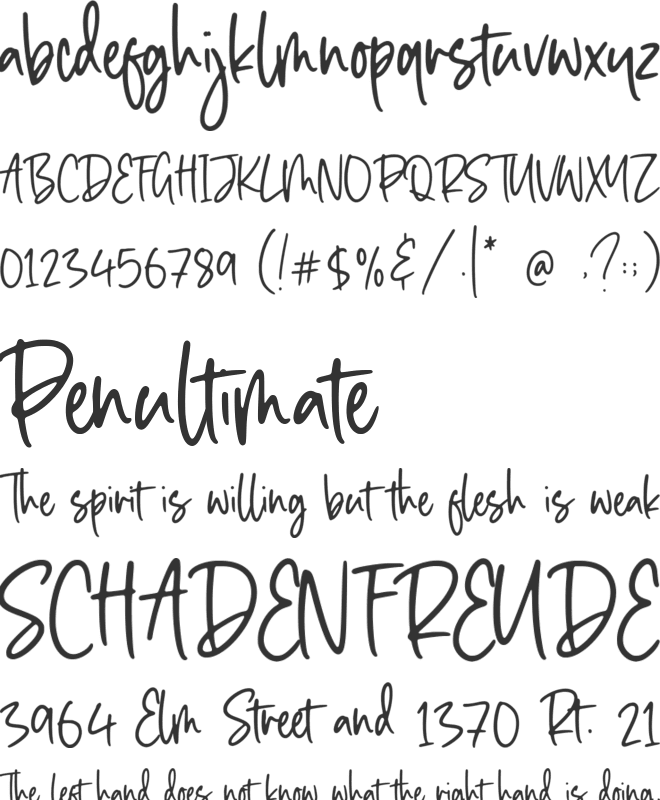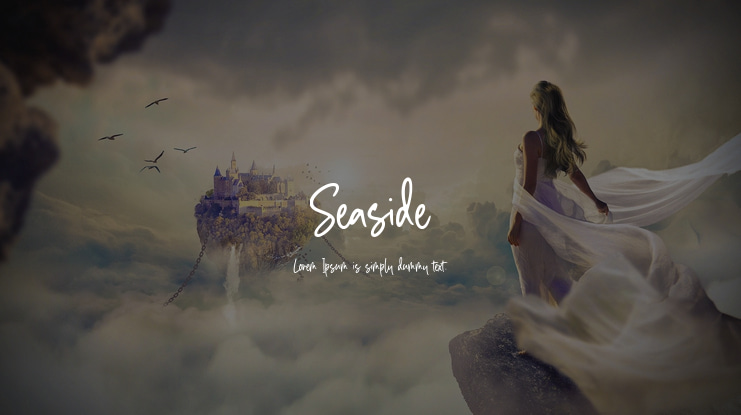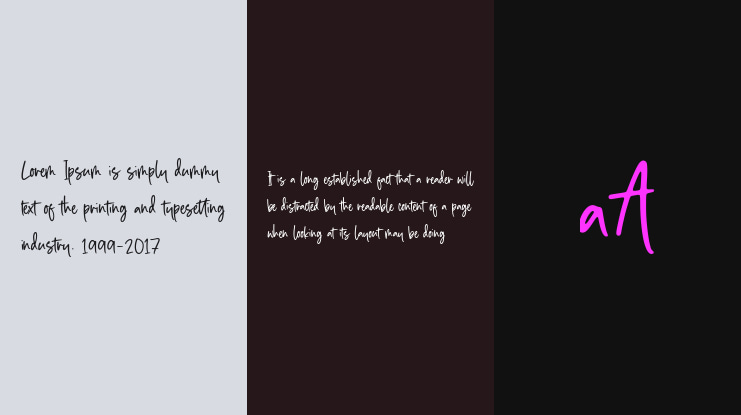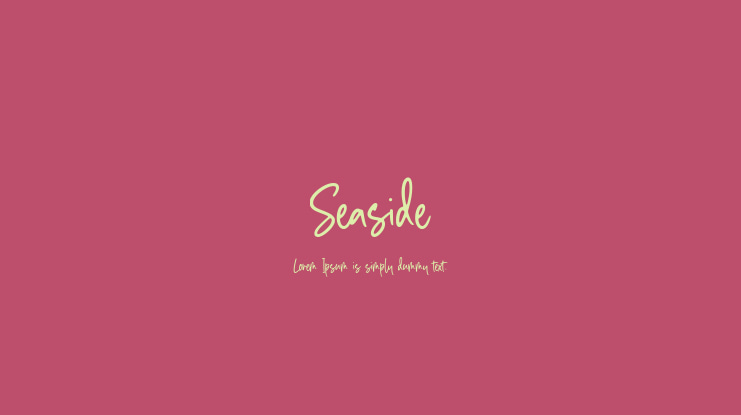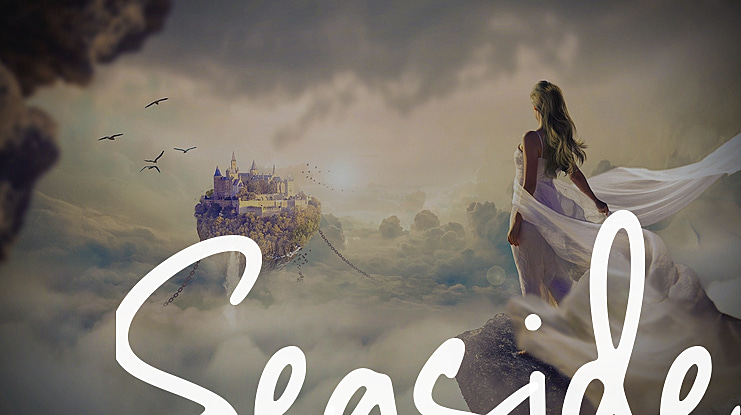
Seaside Font
Introducing by Letterative Studio : Seaside Font
Seaside is a Modern Handwritten Font
Seaside is perfect for product packaging, branding project, megazine, social media, wedding, or just used to express words above the background.
Seaside also multilingual support